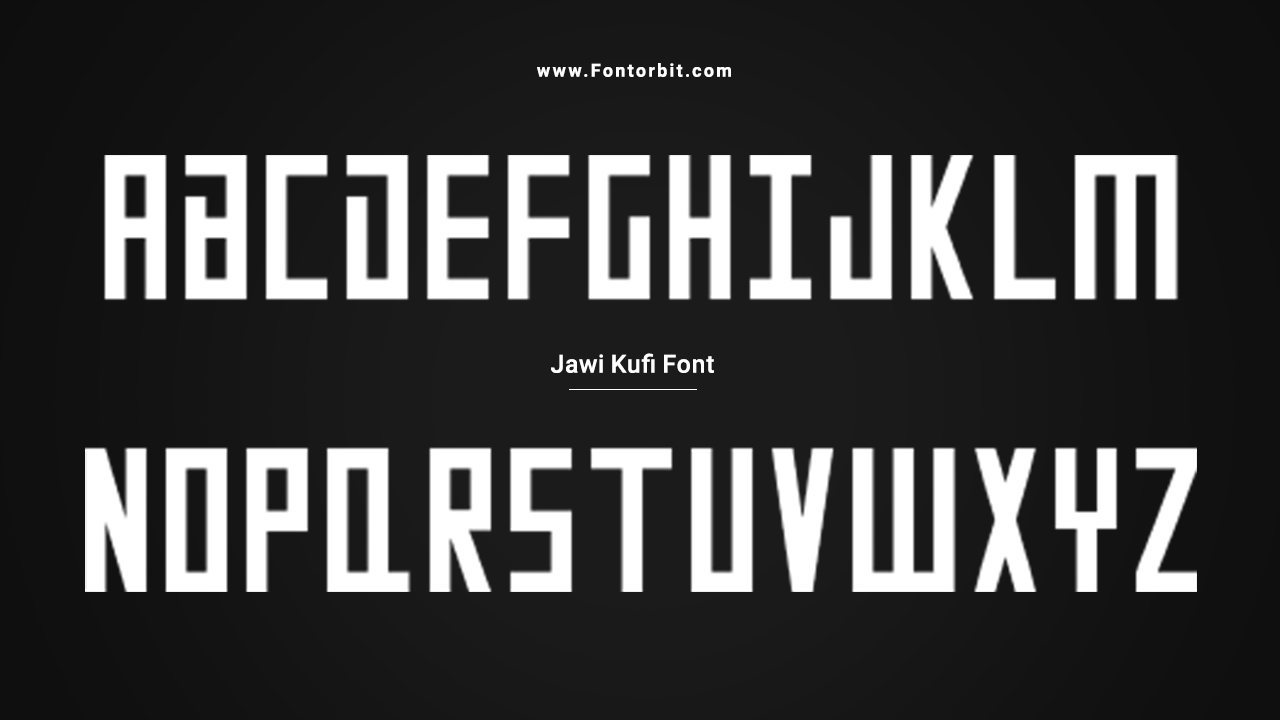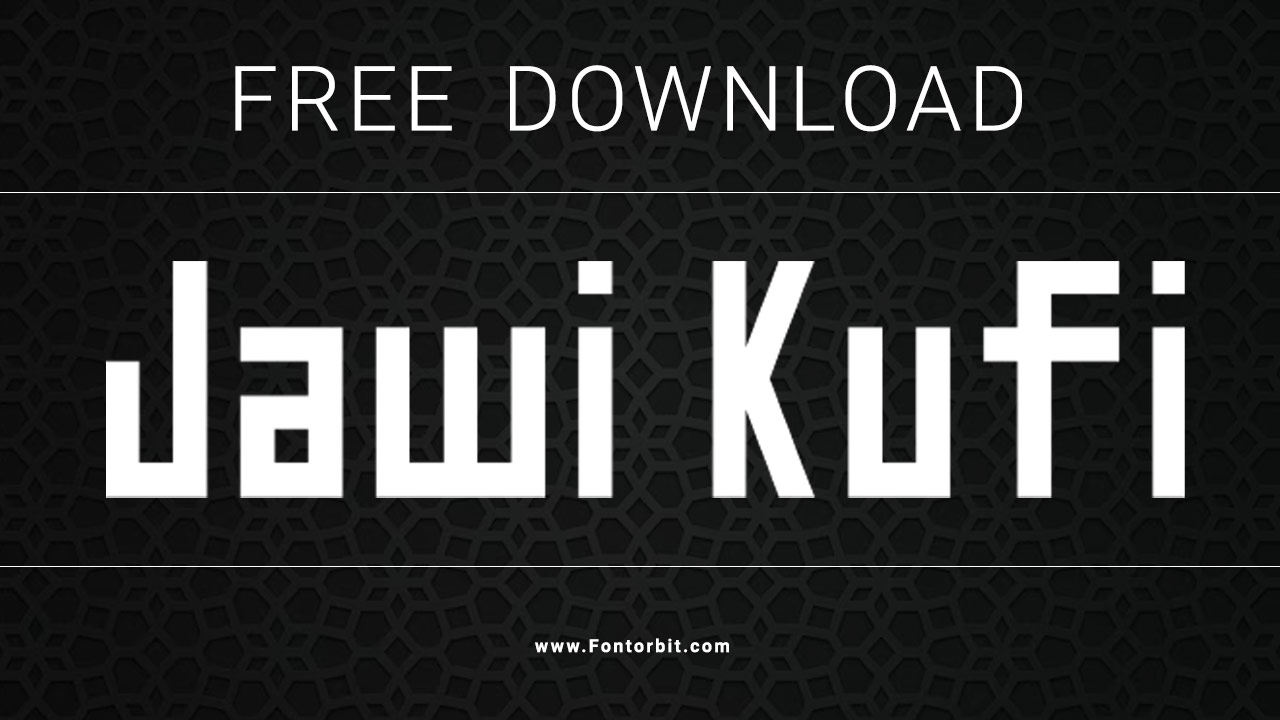
The Jawi Kufi Font is a modern geometric typeface that brings together classical Arabic script with contemporary design elements. Designed by Zairochess Psudo and launched on April 13, 2021, this font family showcases clean, sharp lines and balanced proportions.
It features both Latin and Arabic characters, making it versatile for various design applications. The Jawi Kufi font is perfect for personal and commercial projects, offering a symmetrical and well-aligned look with a medium-weight style.
Key Takeaways:
- The Jawi Kufi font combines traditional Arabic with a modern design.
- Ideal for digital art, retro-themed designs, and tech branding.
- Includes 316 characters and 477 glyphs, supporting Latin and Arabic scripts.
Where Jawi Kufi Is in Use:
- Digital Art Projects
- Retro-Themed Designs
- Video Game Graphics
- Tech-Related Branding
- Headlines and Logos
Best Font Pairing Options for Jawi Kufi Font:
- Roboto (Sans Serif)
- Clean and versatile, Roboto complements Jawi Kufi‘s sharp lines and modern feel.
- Use case: Body text or captions alongside Jawi Kufi headlines.
- Merriweather (Serif)
- The classic yet contemporary serif style of Merriweather balances Jawi Kufi‘s geometric forms.
- Use case: Print designs or elegant branding.
- Open Sans (Sans Serif)
- Neutral and highly legible, Open Sans works well for large blocks of text when paired with Jawi Kufi.
- Use case: Websites and presentations.
- Playfair Display (Serif)
- The decorative style of Playfair Display adds contrast to Jawi Kufi’s modern aesthetic.
- Use case: Titles, invitations, and logos.
- Montserrat (Sans Serif)
- With its geometric proportions, Montserrat blends seamlessly with Jawi Kufi.
- Use case: Tech-related branding and minimalist designs.
- Nunito (Rounded Sans Serif)
- Nunito’s rounded edges soften Jawi Kufi’s sharp and blocky design, creating a balanced look.
- Use case: User interfaces and educational content.
- Poppins (Geometric Sans Serif)
- The geometric structure of Poppins complements Jawi Kufi for a cohesive and contemporary style.
- Use case: Logos, social media graphics, and posters.
- Lora (Serif)
- Lora’s humanistic serif design contrasts beautifully with Jawi Kufi’s rigid structure.
- Use case: Elegant editorial layouts or artistic projects.
- Raleway (Sans Serif)
- This font adds a touch of sophistication to Jawi Kufi‘s bold, symmetrical design.
- Use case: Fashion-related designs and modern advertisements.
- Futura (Sans Serif)
- Futura’s timeless geometric design is an ideal companion to Jawi Kufi.
- Use case: Branding, book covers, or high-tech projects.
1.What Is The Jawi Kufi Font?
Jawi Kufi is a geometric, blocky font combining classical Arabic script with modern design elements, designed by Zairochess Psudo.
6.What Languages Are Supported By Jawi Kufi?
It supports Latin and Arabic characters, including multiple punctuation marks and Arabic presentation forms.